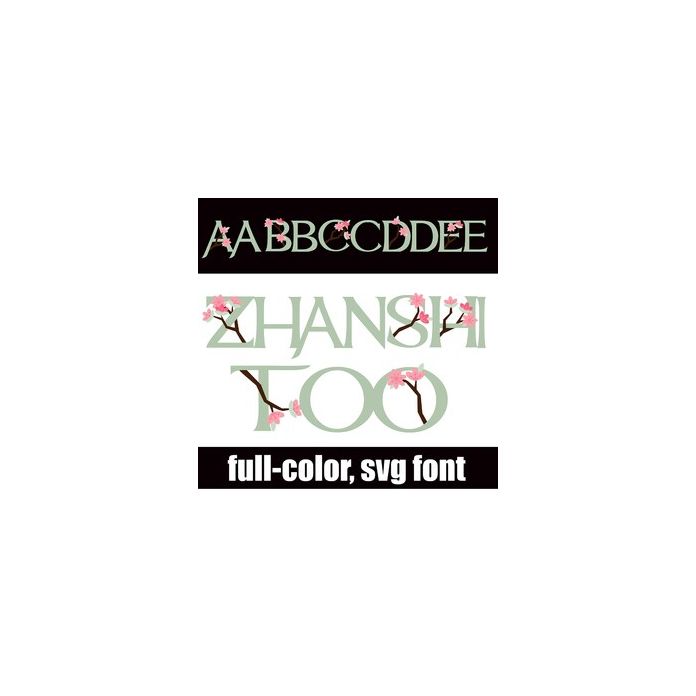
This full-color font features cherry blossoms throughout. There is an alt case w/ additional colors you can access through your system or Silhouette's glyph map.